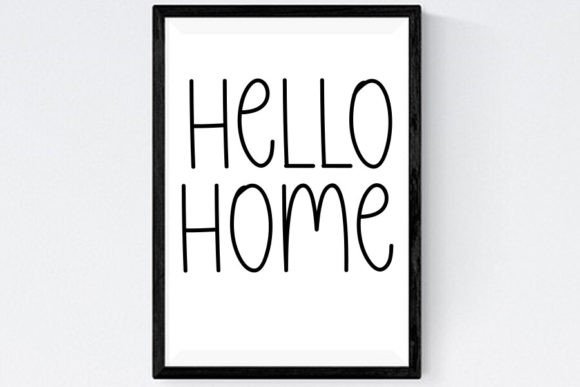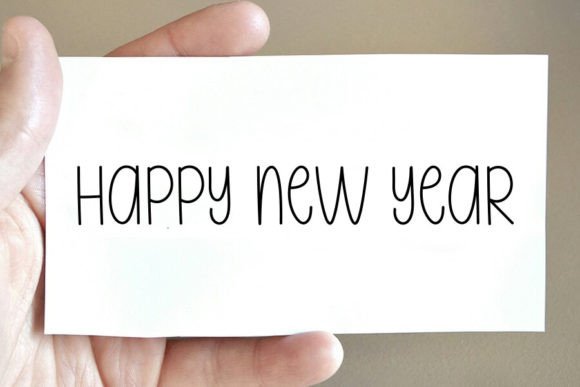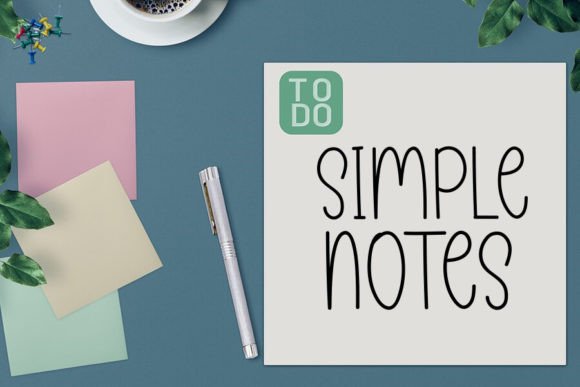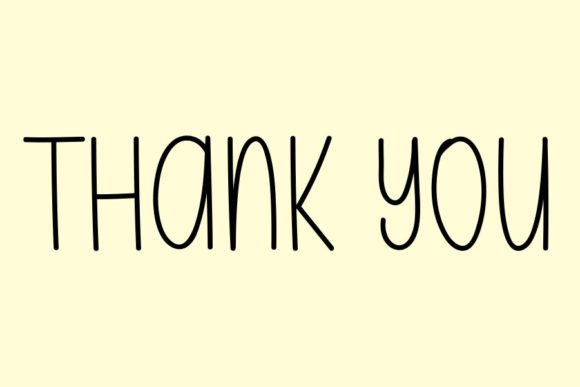
The Joy of Camping Font: A Friendly Handwritten Delight
An Honest Review of Camping Font
Camping Font has quickly become a favorite in my design arsenal, and here’s why:
- ✨ Friendly and approachable: Camping Font has a warm, handwritten feel that’s perfect for a wide range of design projects.
- ✅ Highly versatile: Whether you’re designing for crafts, digital media, presentations, or greeting cards, this font adapts seamlessly.
- 💫 Easy to read: The font’s clear and legible, making it suitable for both headings and body text.
However, no font is perfect, and Camping Font has a few minor quirks:
- 🤔 Limited formal variations: If you need a highly formal or elegant look, Camping Font might not be the best choice.
- ⚠️ Occasional kerning issues: As with any font, you might encounter some kerning issues, especially when using it in combination with other fonts.
The Story Behind Camping Font
Camping Font was designed with the intention of creating a friendly, approachable font that captures the essence of outdoor adventures. The designer aimed to create a font that’s perfect for a wide range of design projects, from camping and outdoor gear branding to creative crafts and DIY projects.
| Font Name | Camping Font |
| Author | salma studio |
| Is Camping Font suitable for body text? | Yes, Camping Font is legible and easy to read, making it suitable for body text. However, it’s recommended to use it for headings and titles for maximum impact. |
| Does Camping Font support OpenType features? | Yes, Camping Font supports OpenType features, including ligatures, stylistic alternates, and glyphs. |